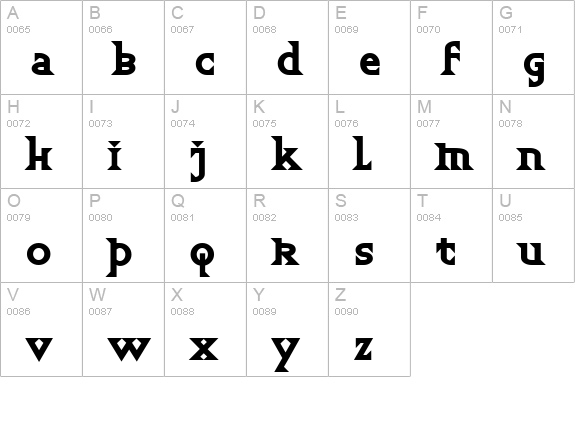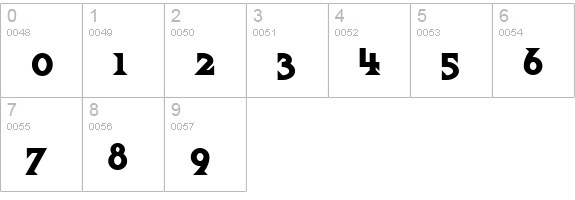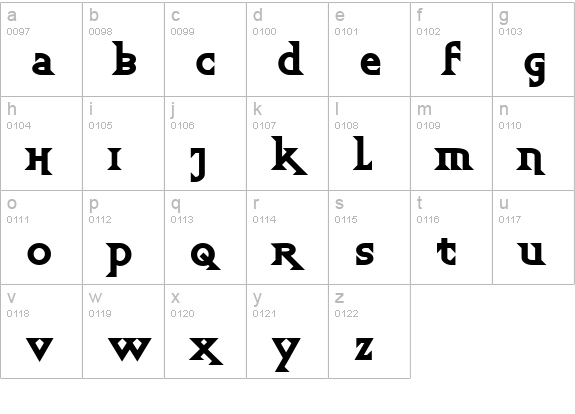
UpbeatBold Font Details
Introducing UpbeatBold font - a versatile typeface that exudes energy and confidence. With its bold and dynamic letterforms, UpbeatBold is perfect for making a statement in any design project. Whether you're looking to create eye-catching headlines, striking posters, or impactful branding materials, this font is sure to grab attention. What sets UpbeatBold apart is its unique combination of strength and sophistication, making it a go-to choice for projects that demand a bold and upbeat aesthetic. The clean lines and sharp edges of this font give it a modern and contemporary feel, while the bold weight ensures that your message will stand out loud and clear. And the best part? UpbeatBold is completely free to download at FontsMarket.com. So why wait? Add this dynamic font to your collection today and let your designs shine with confidence and style.